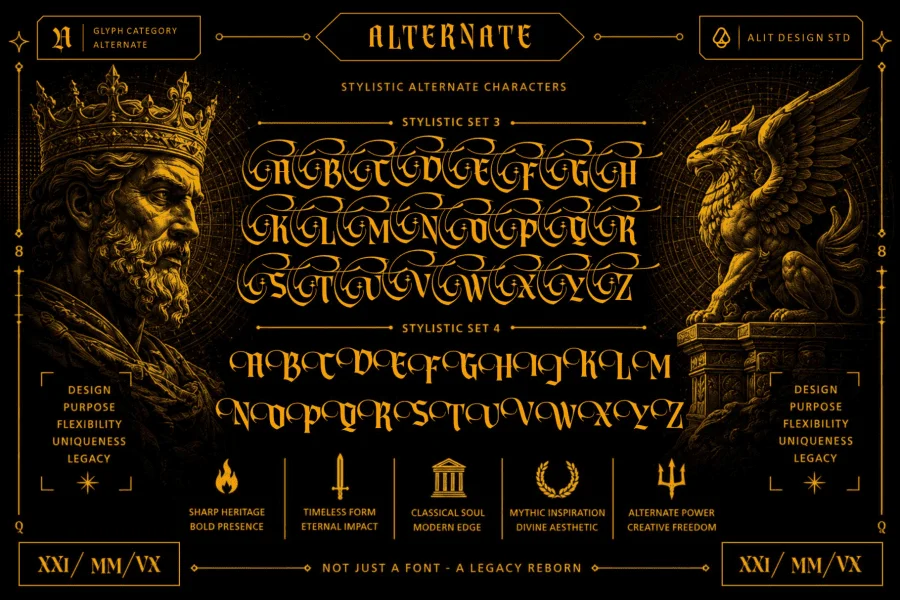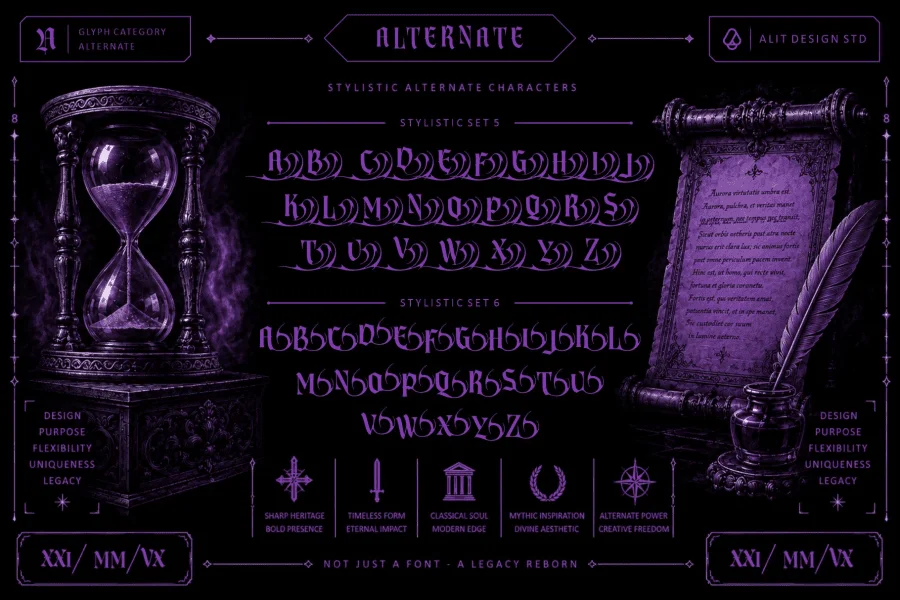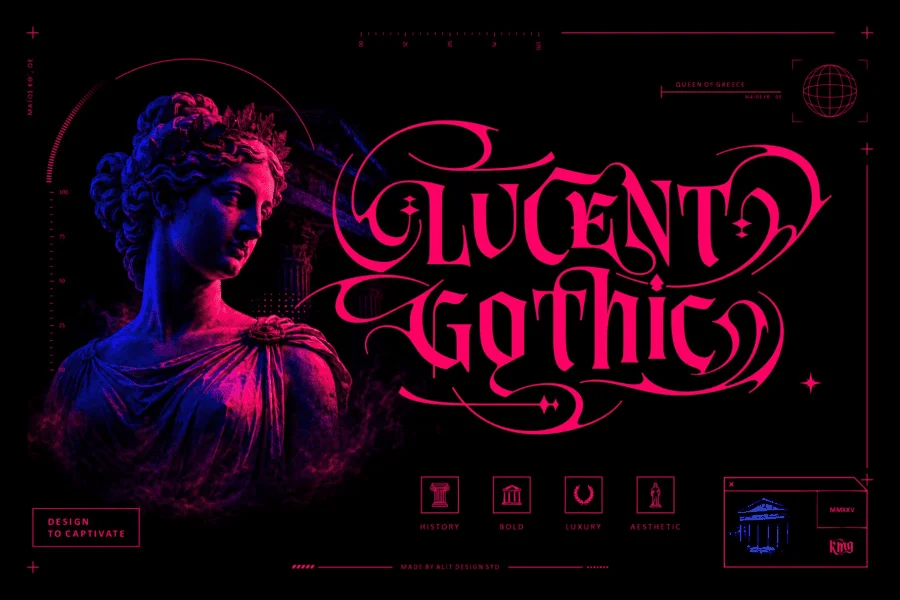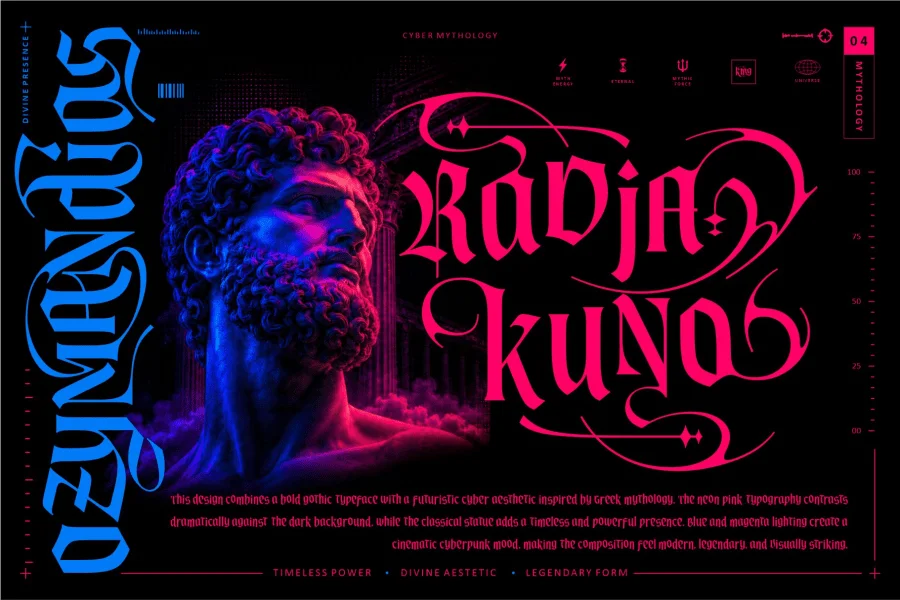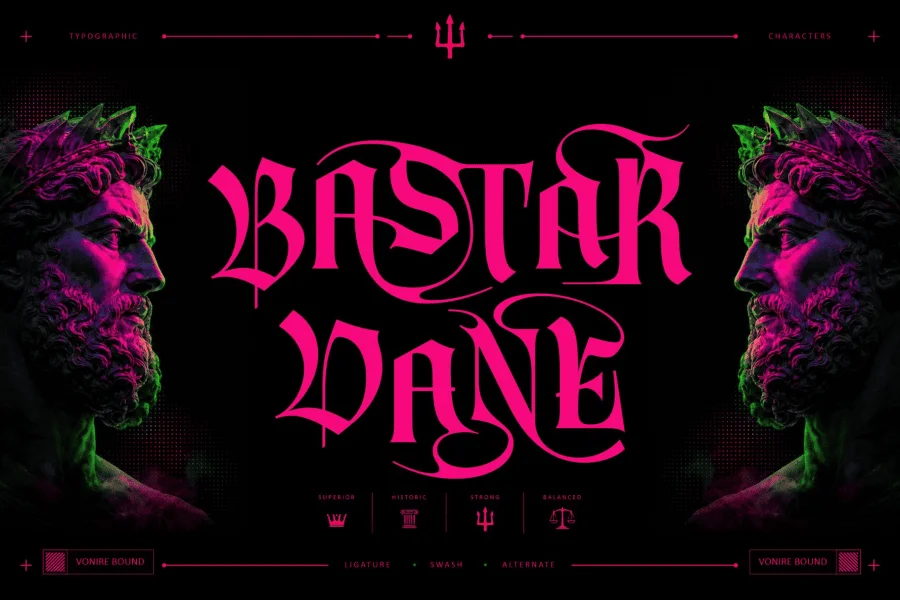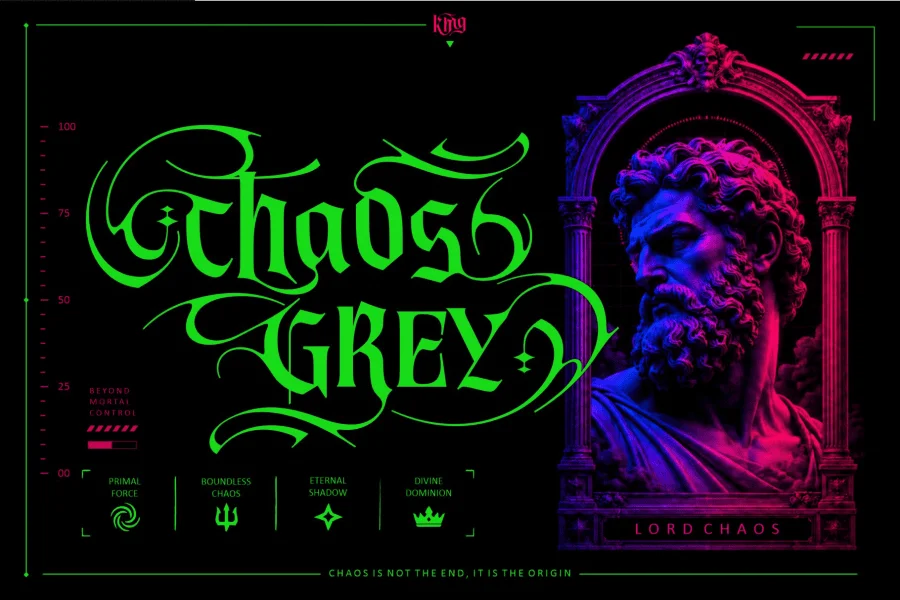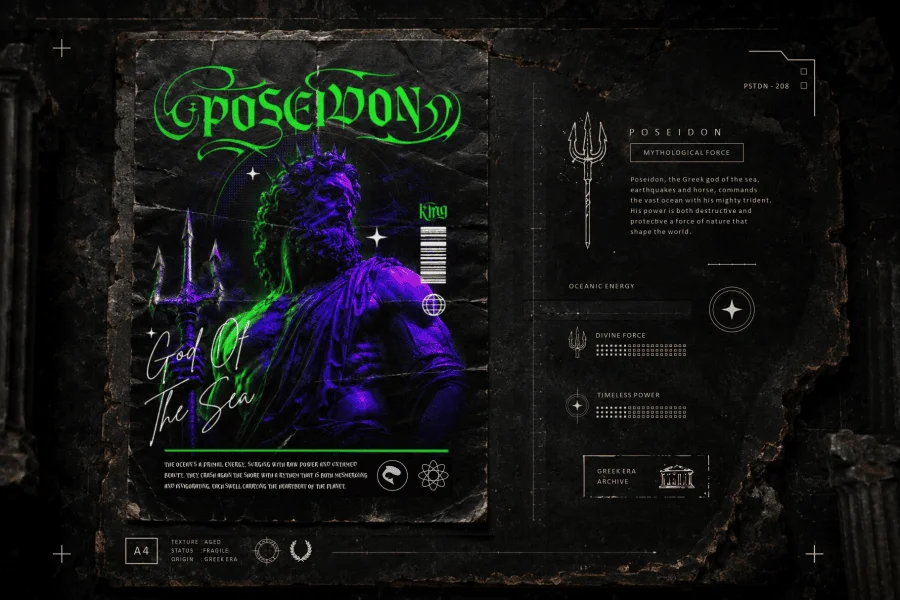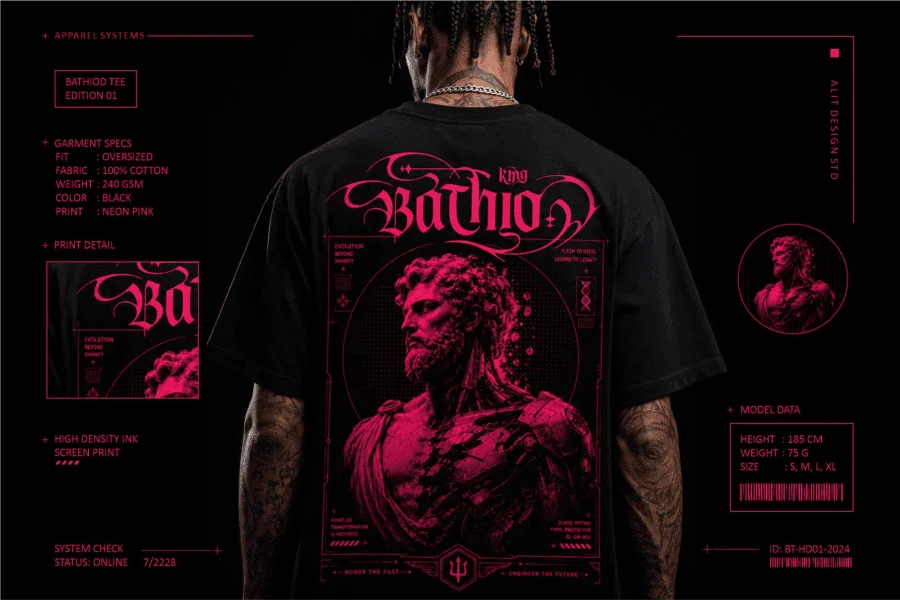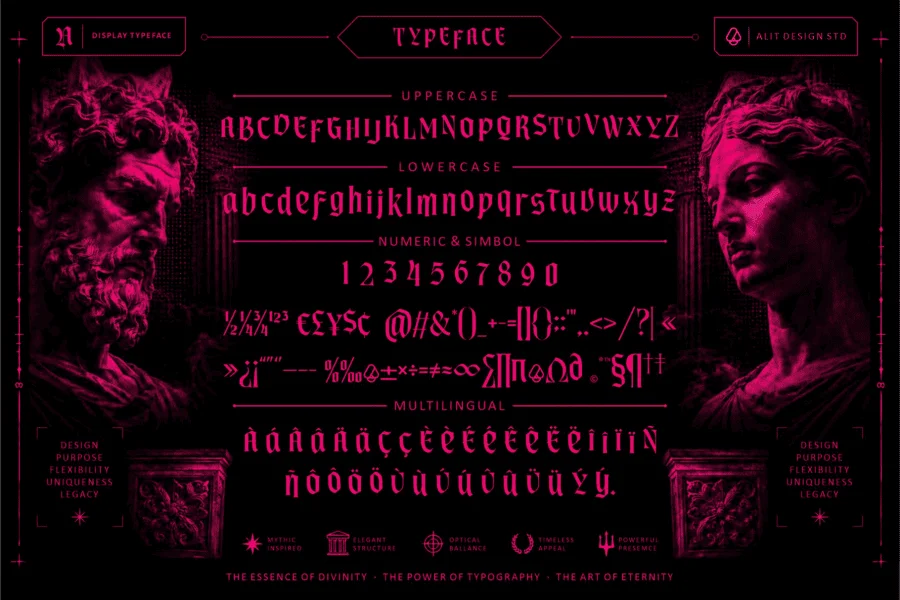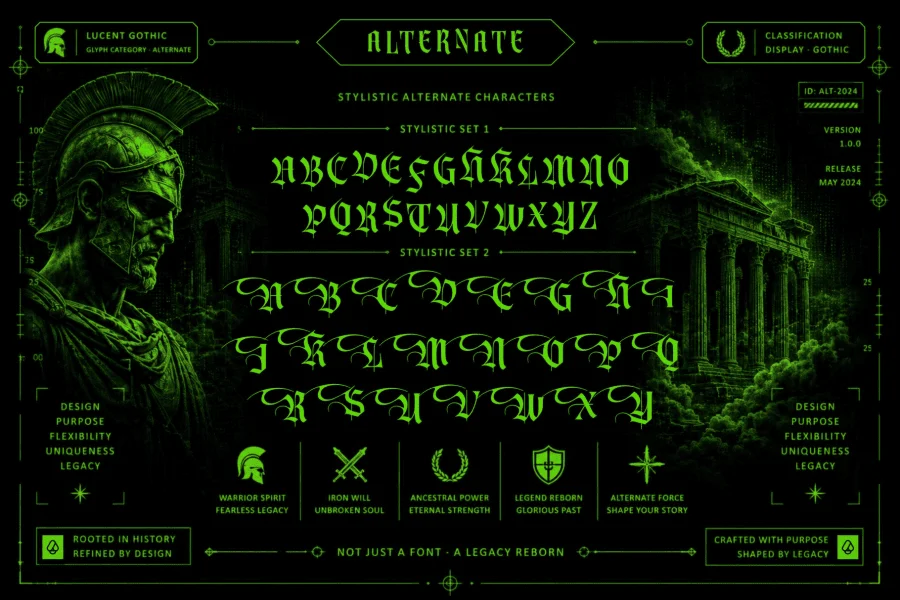
Vonire Bound: A Mythic Fusion of Gothic Power and Cyber-Aesthetic
Unleash a legendary presence in your designs with Vonire Bound, a high-impact display typeface that seamlessly bridges the gap between classical Greek mythology and futuristic cyberpunk energy.
Vonire Bound is not just a font; it is a visual statement. Built with sharp, aggressive gothic structures and infused with fluid, modern curves, this typeface captures the "Cyber Mythology" aesthetic. Whether you are designing for high-end streetwear, cinematic posters, gaming interfaces, or luxury branding, Vonire Bound provides a "Legacy Reborn" that commands immediate attention.